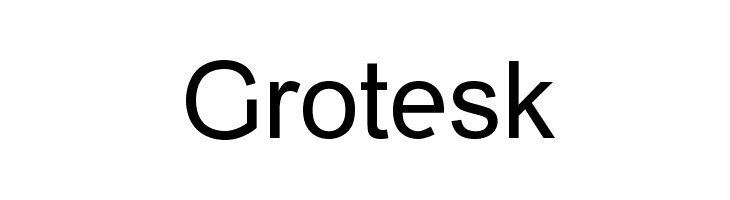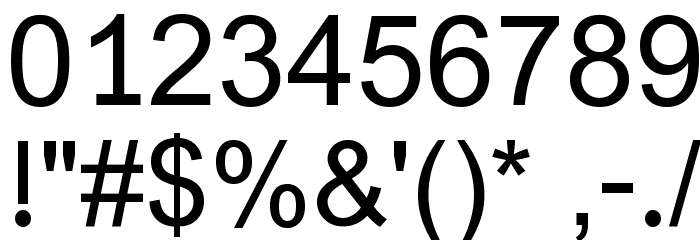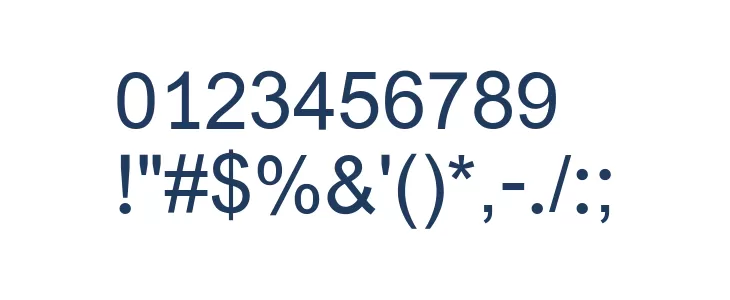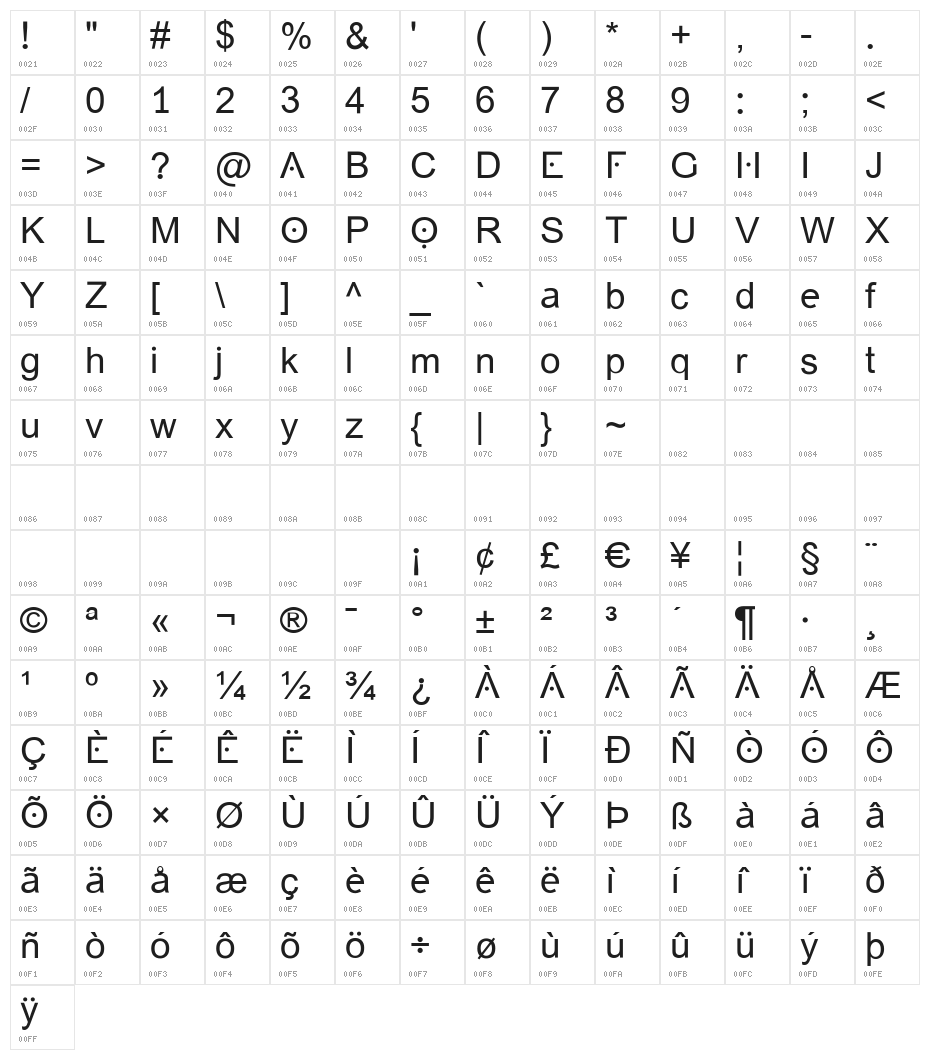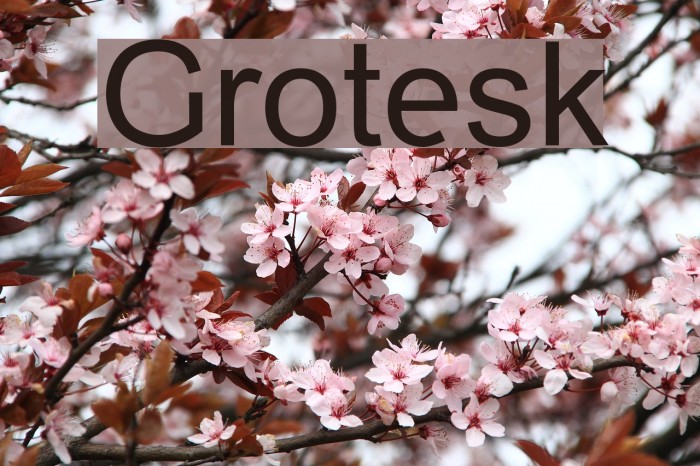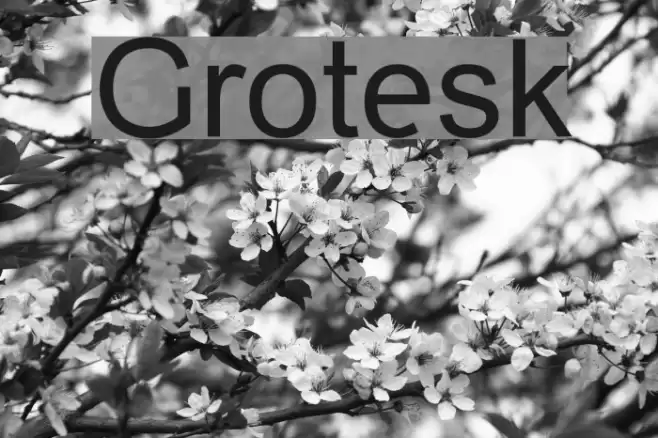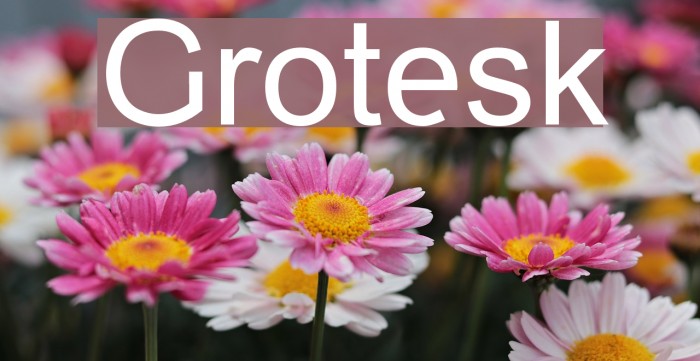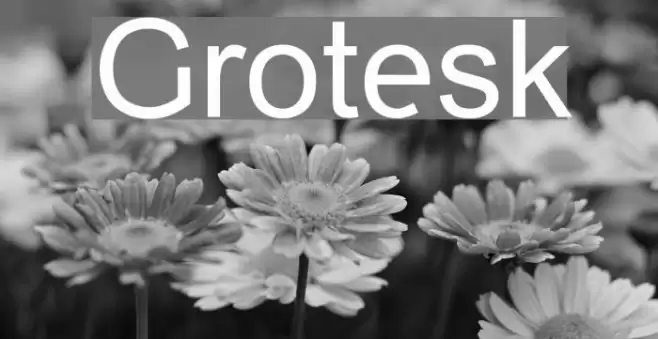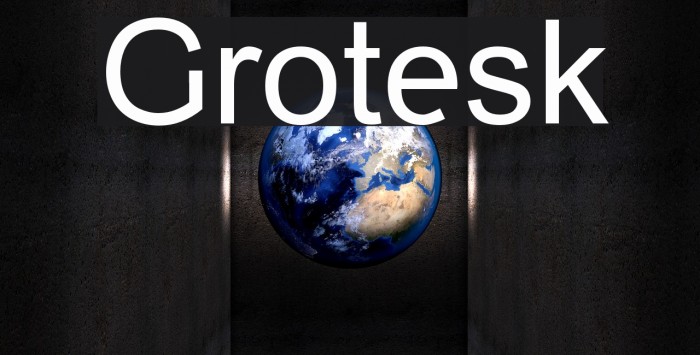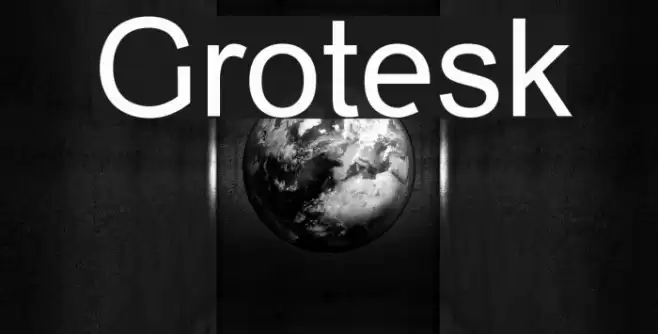
Grotesk Font
Grotesk Description
This typeface exhibits a clean and modern aesthetic, characterized by its geometric shapes and uniform stroke widths. The uppercase letters are bold and assertive, with a consistent height and width that convey a sense of stability and balance. The lowercase letters maintain this geometric precision, offering a harmonious flow that complements the uppercase set. The numerals are clear and legible, designed to ensure readability in various contexts. Special characters are included, providing versatility for diverse applications. Overall, the font's simplicity and clarity make it suitable for a wide range of design projects.
Use CaseHeadlines, Logos, Branding
Proposed ProjectsIdeal for branding, advertising, web design, and editorial layouts.